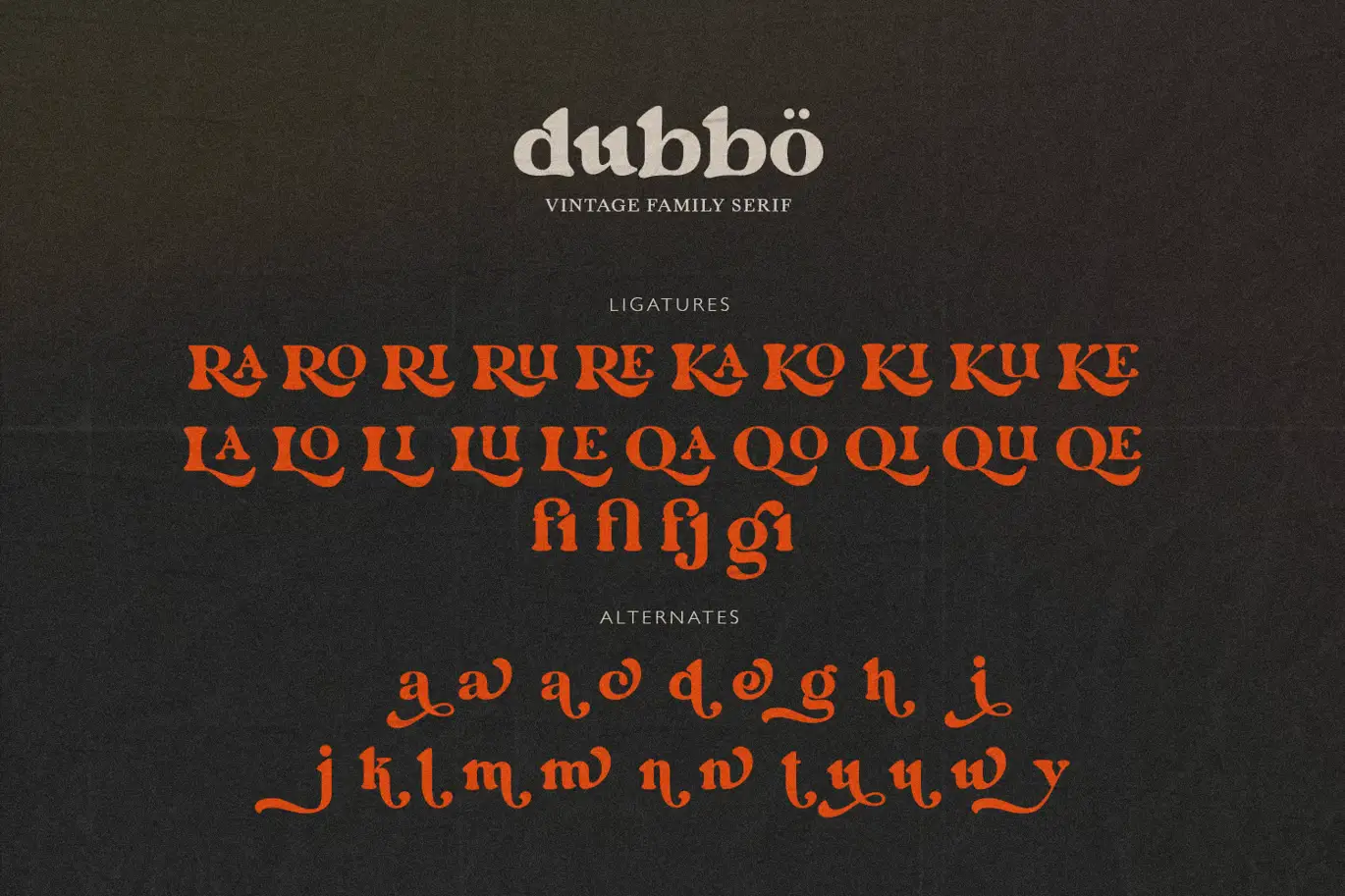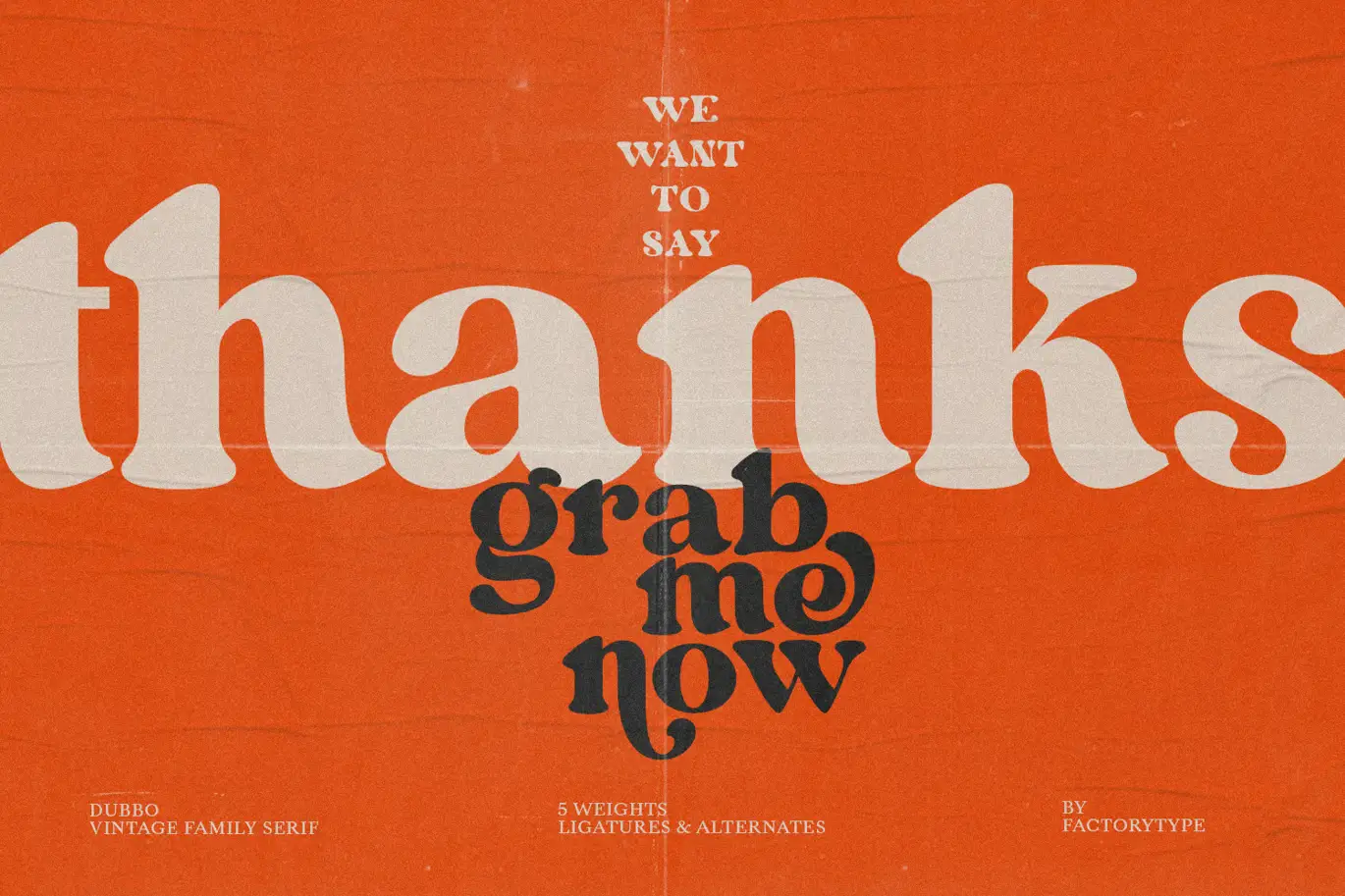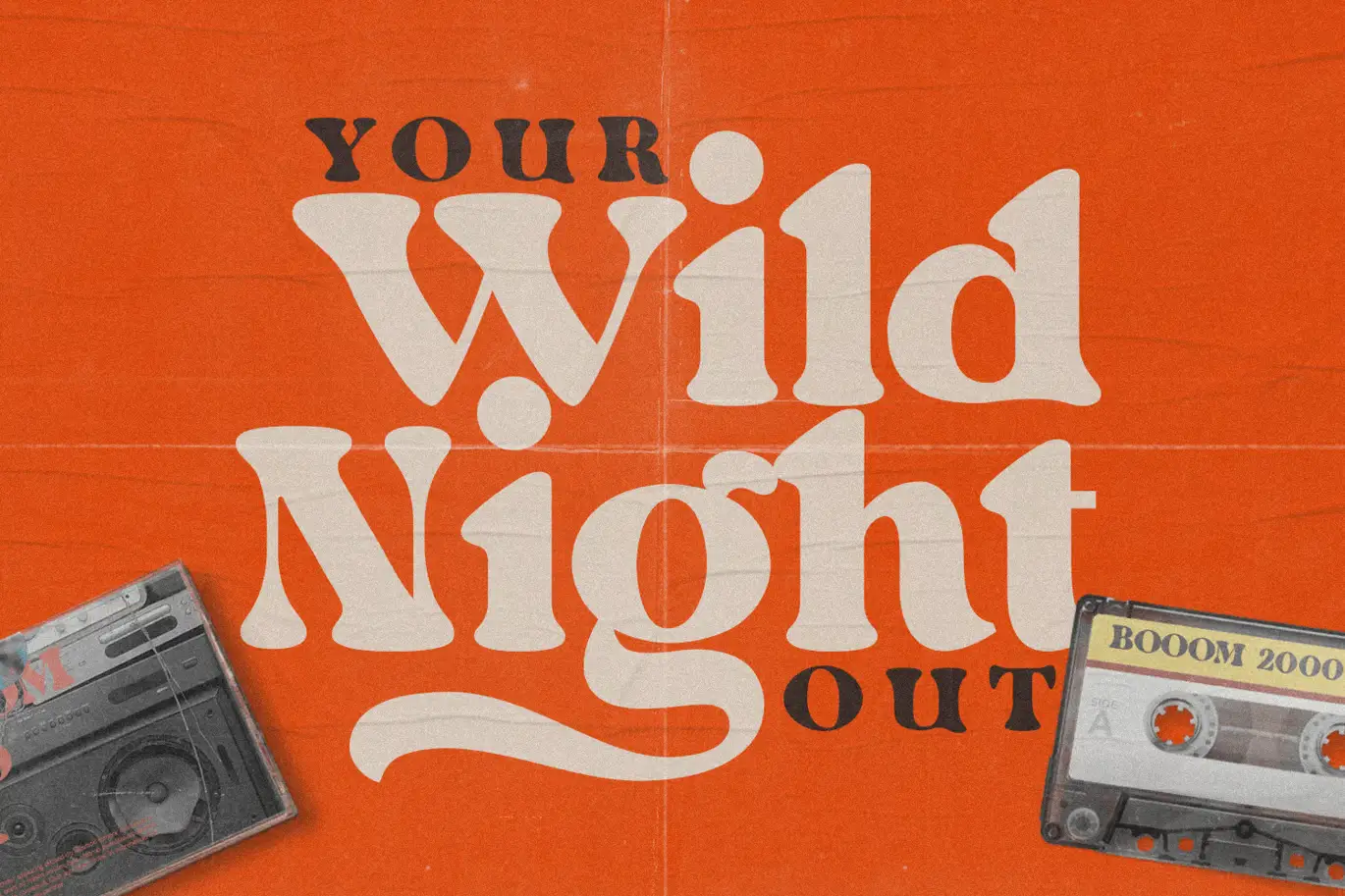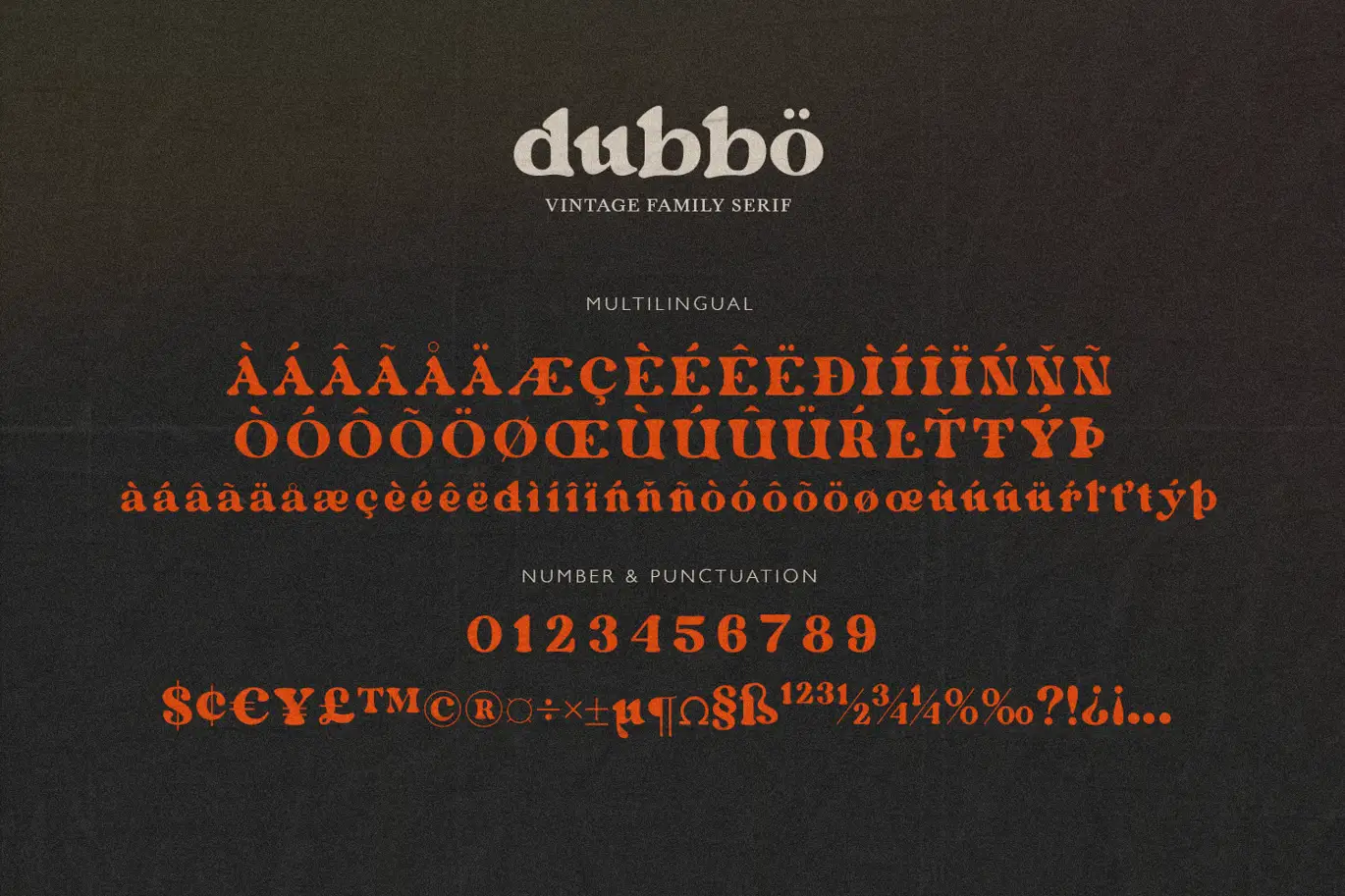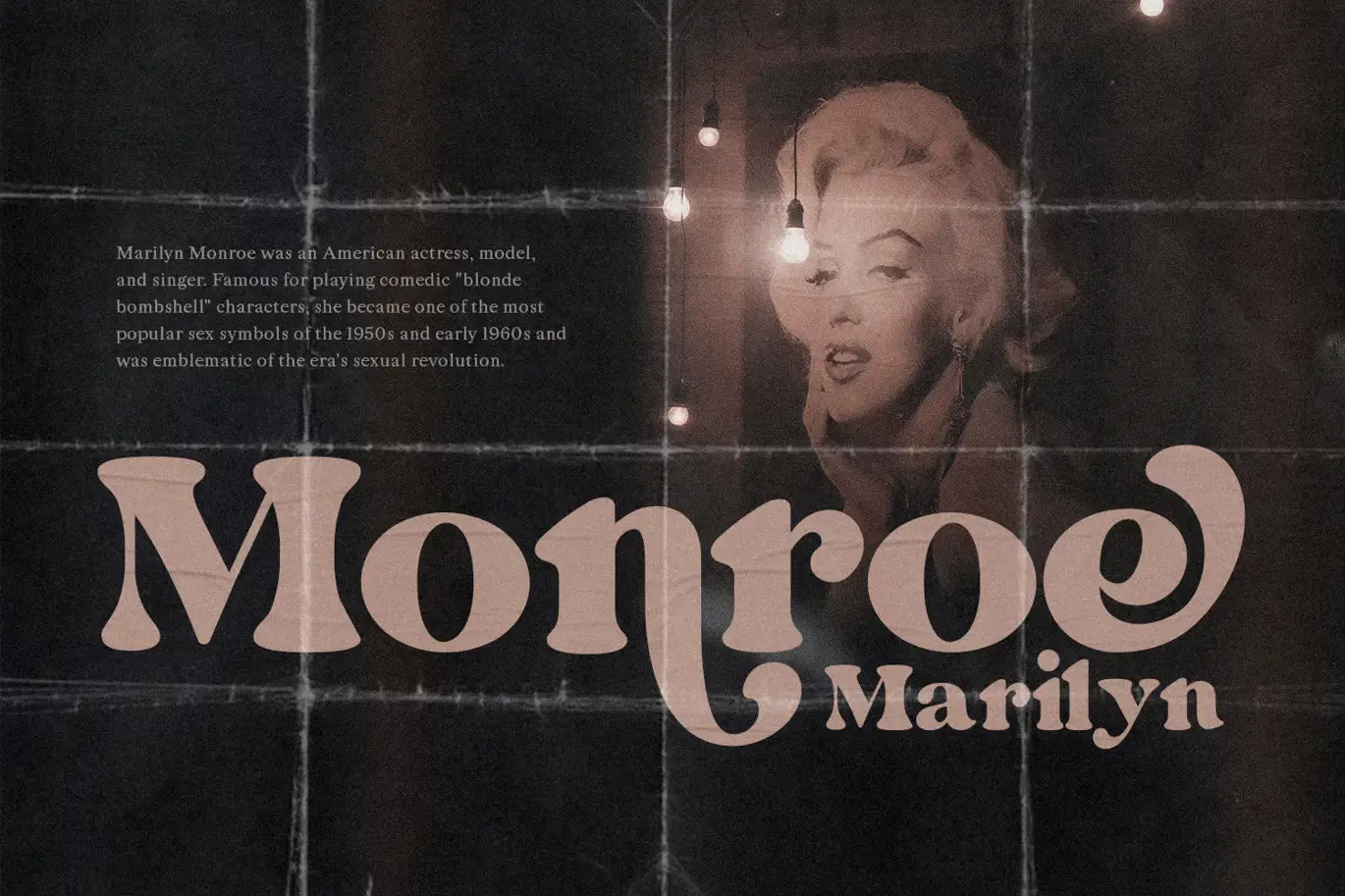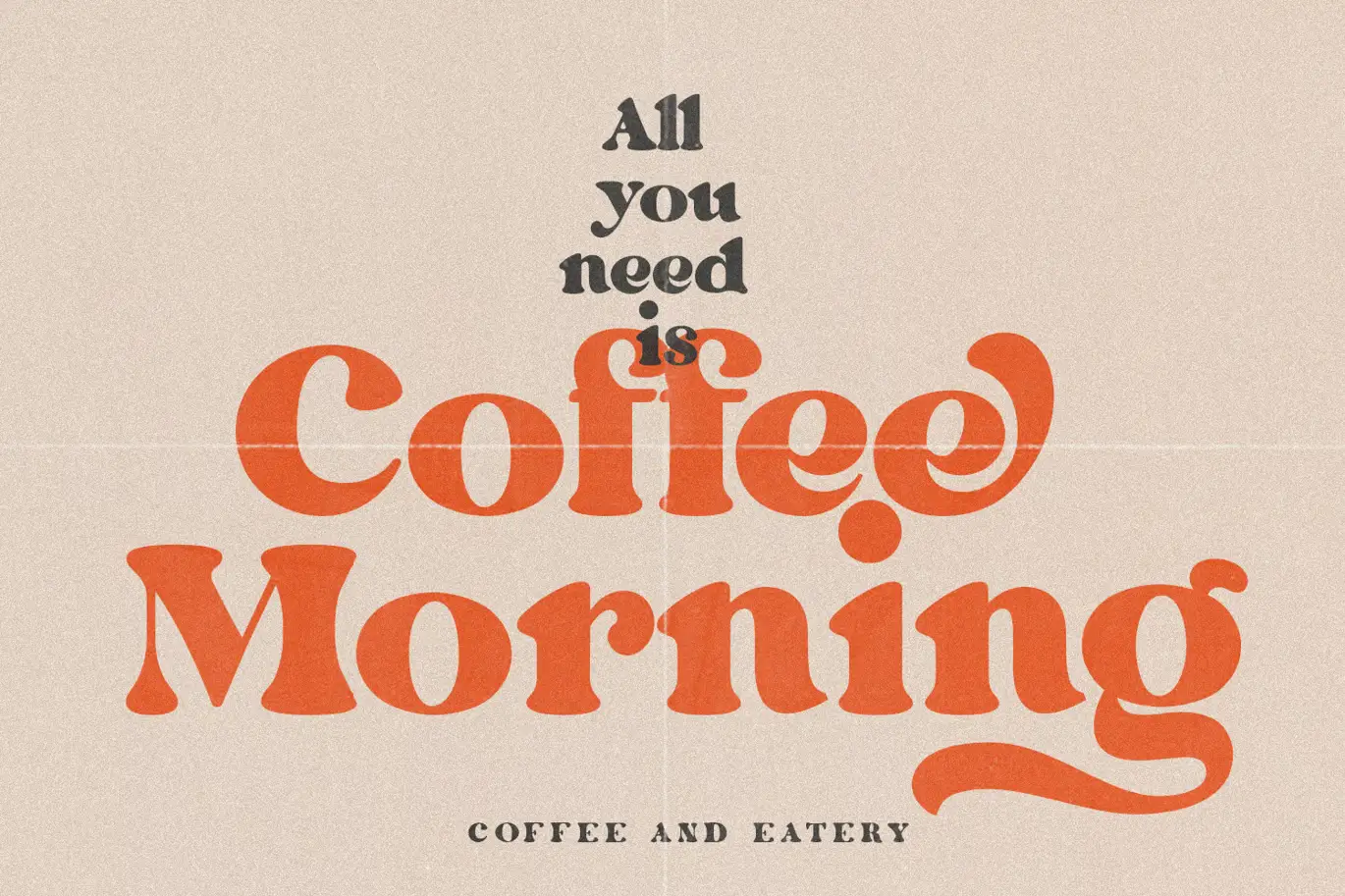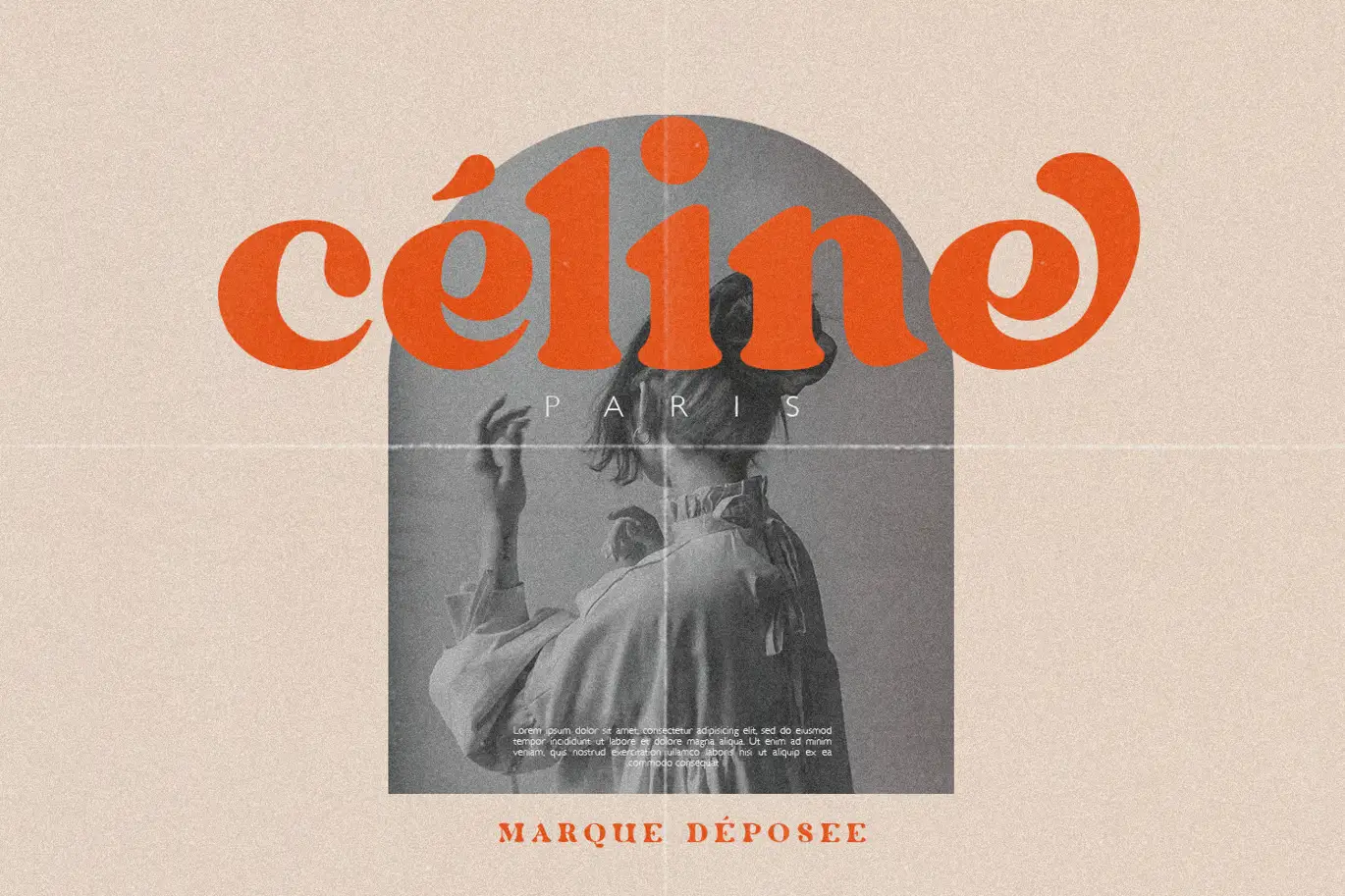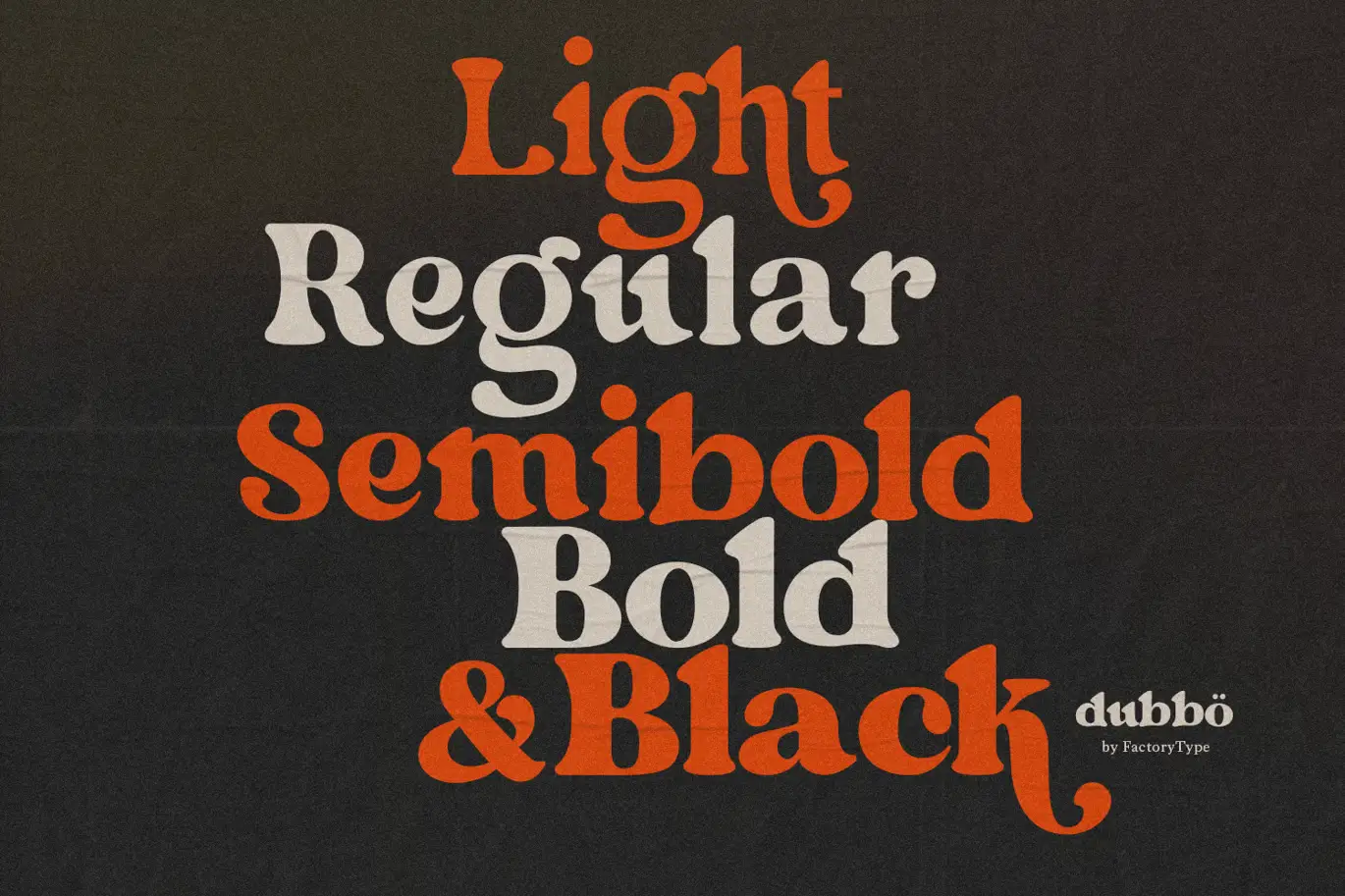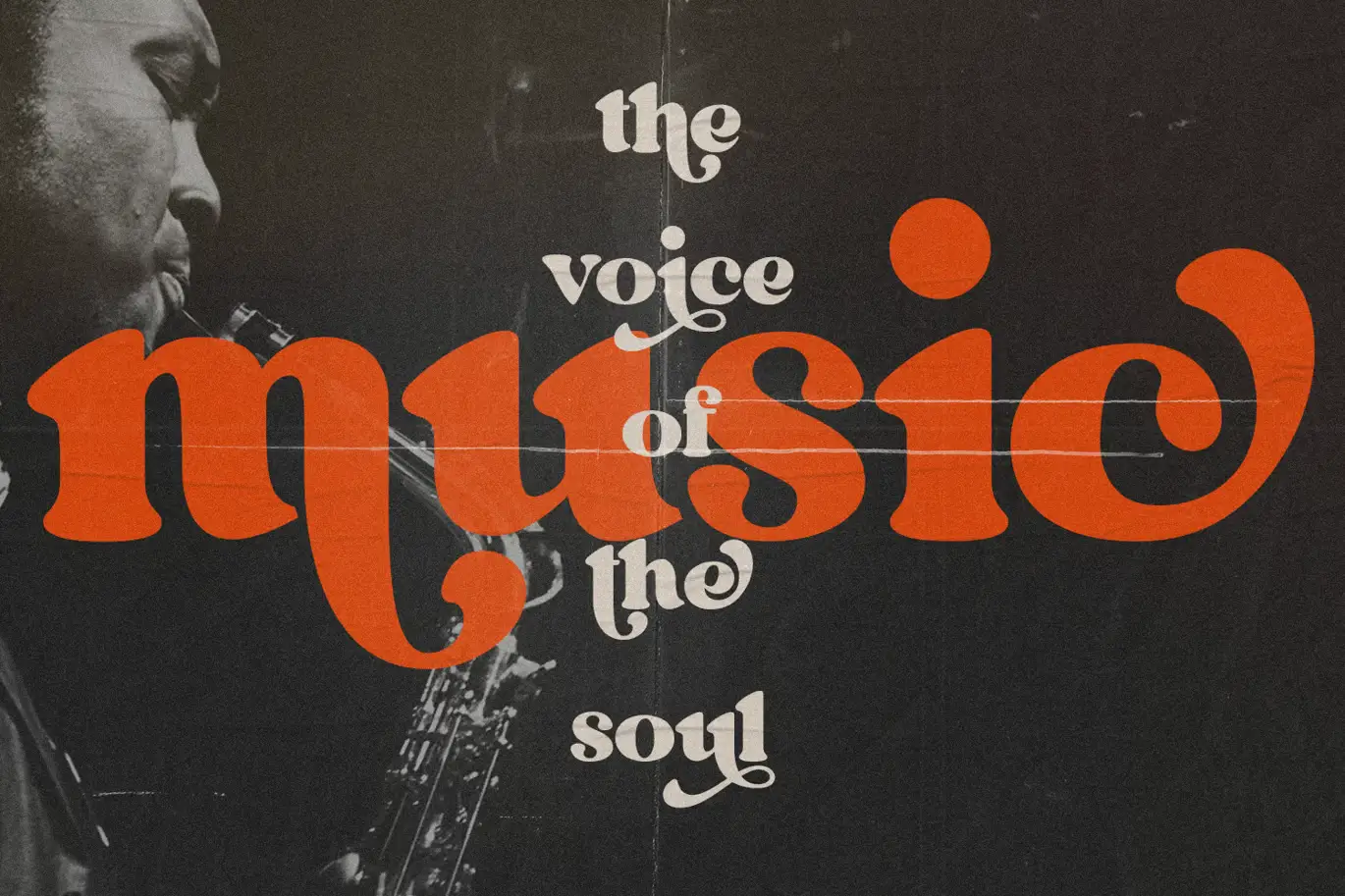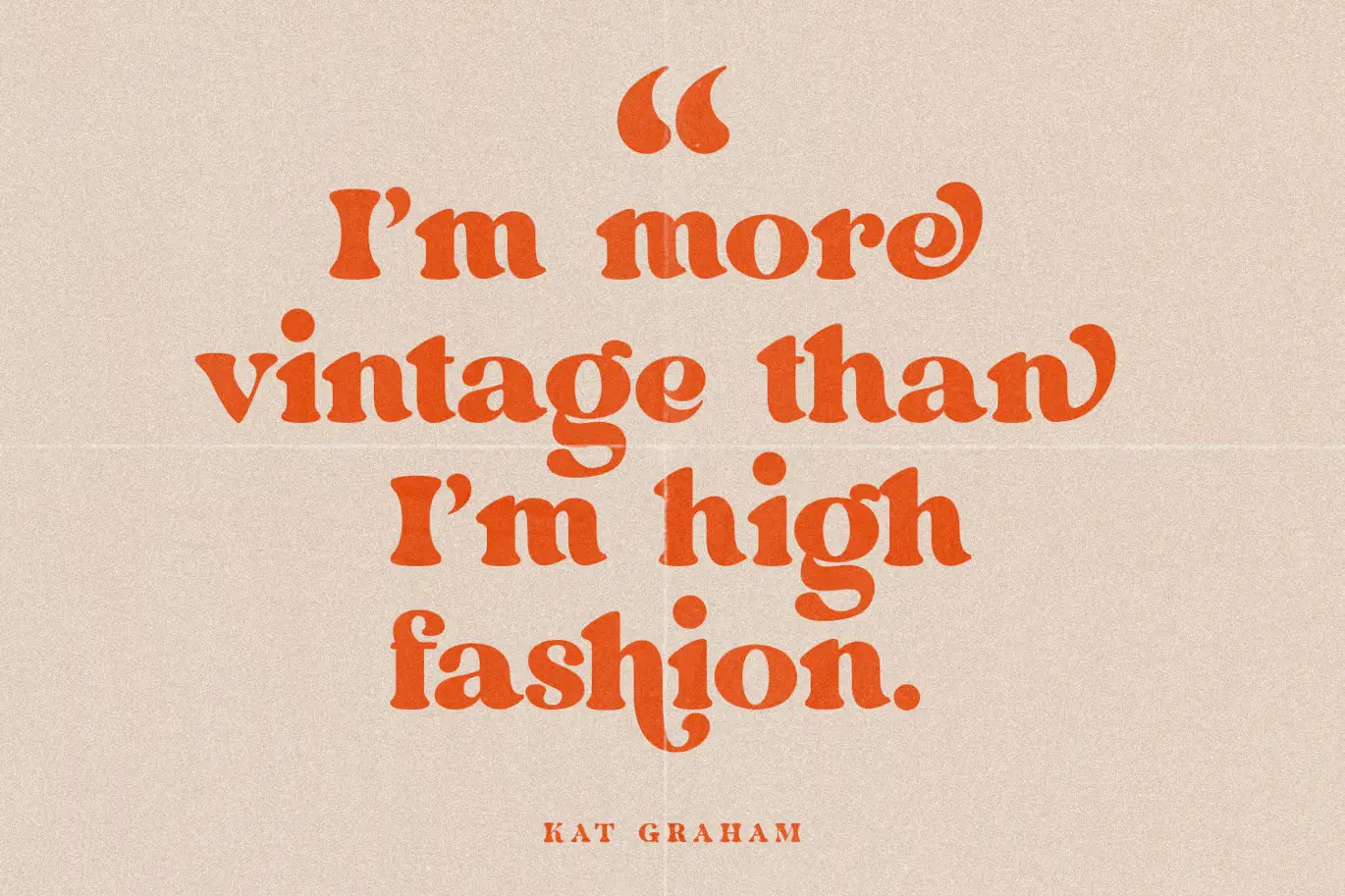
Dubbo – Retro Serif Font
Introducing Dubbo, a stylish retro serif font that combines boldness with a touch of vintage charm. Perfect for those looking to add a 70s-inspired vibe to their designs, Dubbo’s thick curves and elegant serifs create a unique aesthetic that stands out in any project.
Dubbo is designed for creatives who appreciate the blend of modern and traditional styles. Whether you’re working on retro moodboards, vintage logos, or contemporary branding, this font provides the versatility you need. With its distinct uppercase and lowercase characters, along with numbers and punctuation, Dubbo is equipped to handle a variety of design tasks.
- ✅ 5 Weights Available → Choose from Light, Regular, Semibold, Bold, and Black for diverse design needs.
- ✅ Stylistic Alternates & Ligatures → Enhance your typography with unique letter combinations and alternatives.
- ✅ Multilingual Support → Includes characters for multiple languages, ensuring your designs can reach a wider audience.
Dubbo stands out not just for its aesthetic appeal but also for its functionality. Trusted by designers worldwide, this font is perfect for creating eye-catching branding materials, social media graphics, and more. Its retro flair combined with modern usability makes it an essential addition to your font collection.